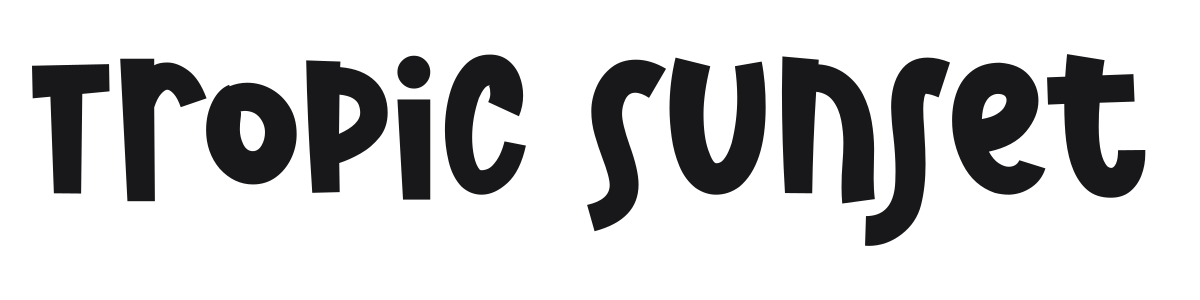
Tropic Sunset
Tropic Sunset is a heavy, hand-painted display font with thick, bouncy strokes and a loose retro energy straight from the 1960s groovy era. Each character has an irregular, organic quality with slightly uneven baselines that give the whole word a sun-soaked, carefree feel. Strong at large sizes for posters, packaging, and anything that needs a tropical or festival vibe.